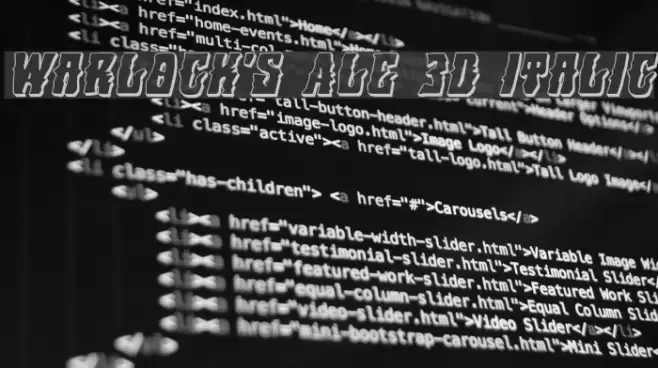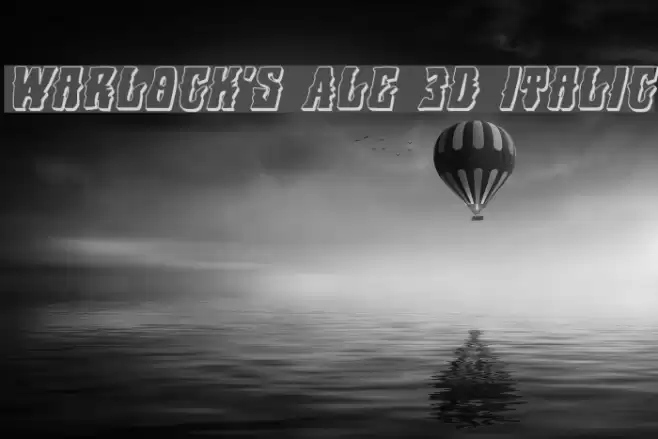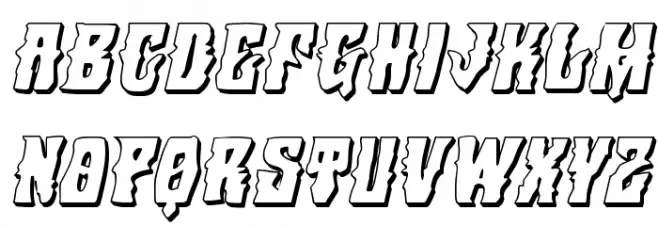
Warlock's Ale 3D Italic Font
Warlock's Ale 3D Italic Description
This font features a bold, 3D italic style with a distinct shadow effect that gives it a dynamic and eye-catching appearance. The characters are designed with sharp, angular edges and a slightly condensed form, enhancing their boldness and presence. The uppercase and lowercase letters maintain a consistent style, with the numbers and special characters following suit. This font's unique design makes it ideal for projects that require a strong visual impact, such as posters, headlines, and logos. The italic slant adds a sense of motion and energy, making it suitable for creative and modern applications.
A bold, 3D italic font with sharp, angular edges and a dynamic shadow effect from Uncategorized fonts.
- Proposed Projects: Ideal for posters, headlines, logos, and any project needing a strong visual impact.